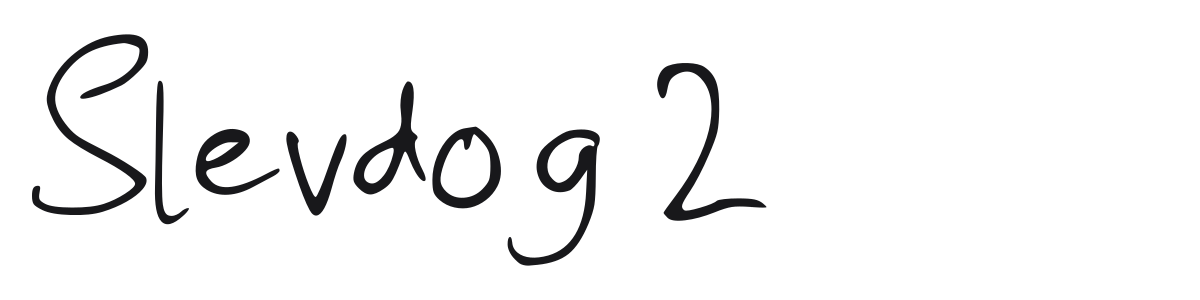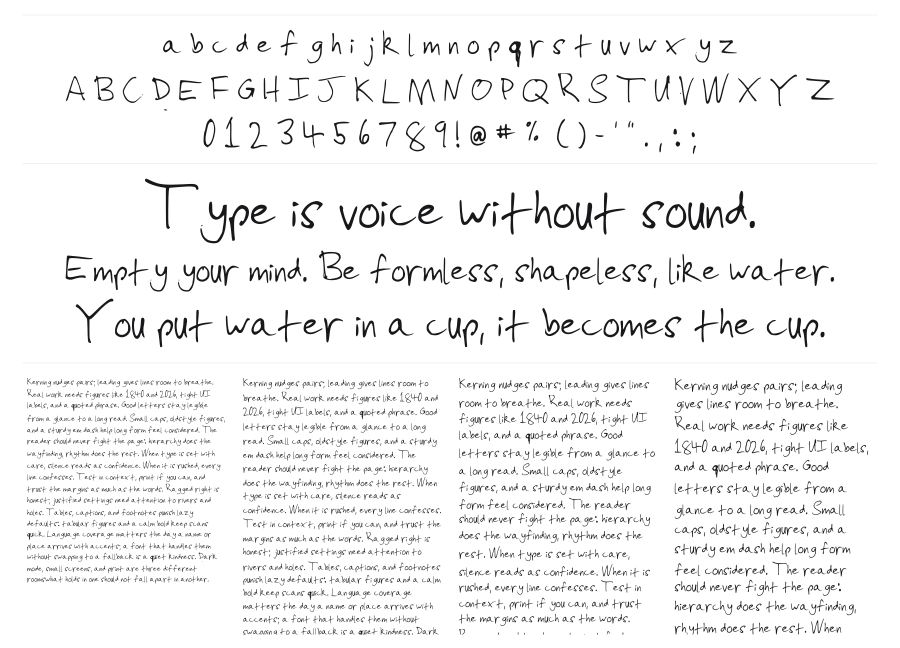
Slevdog 2
by Michael Slevin
Slevdog 2 is a casual handwritten font digitized directly from natural handwriting, giving it an unaffected, pen-on-paper quality. The thin, slightly irregular strokes and shifting baseline make it feel genuinely personal rather than constructed. It works well wherever an informal, human touch is the point.